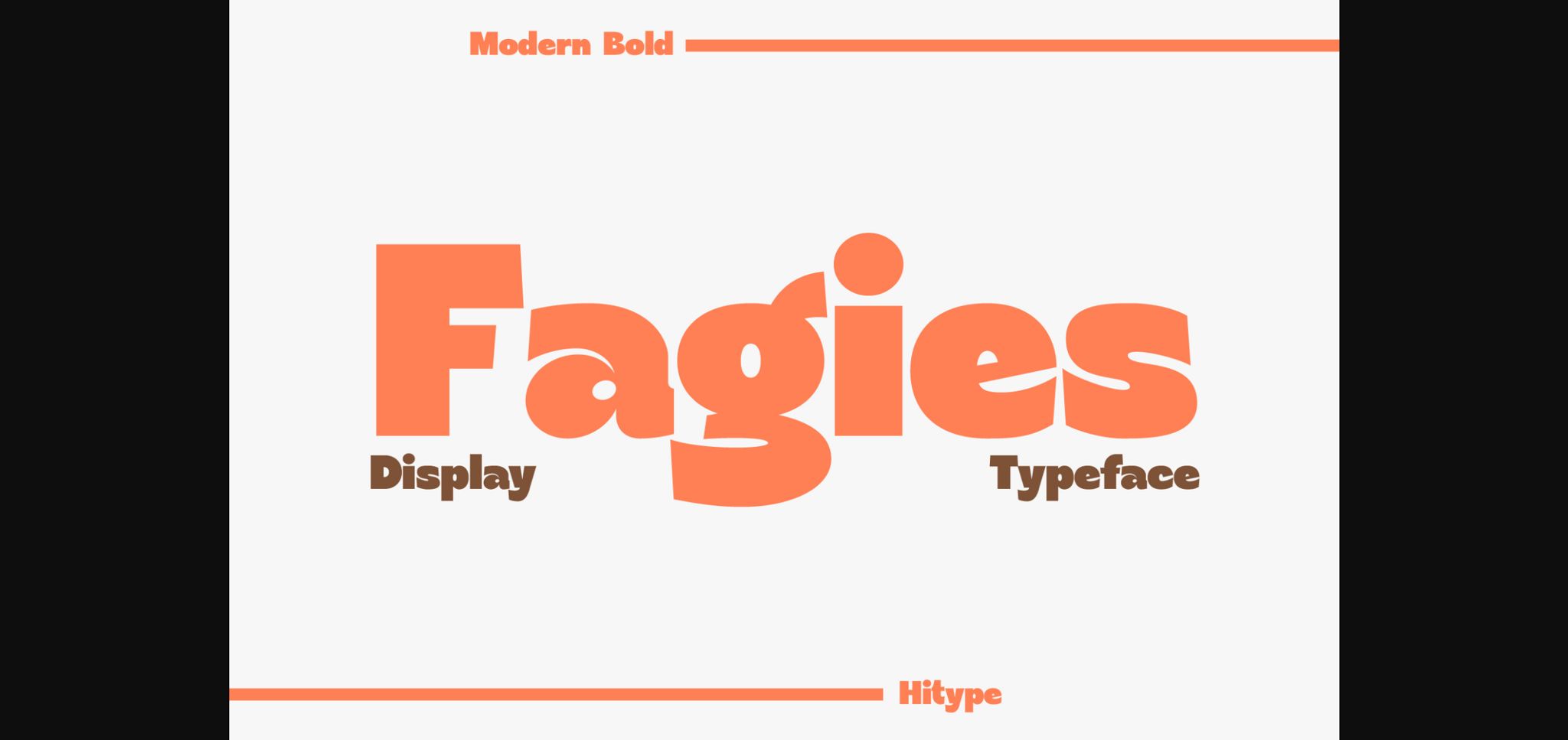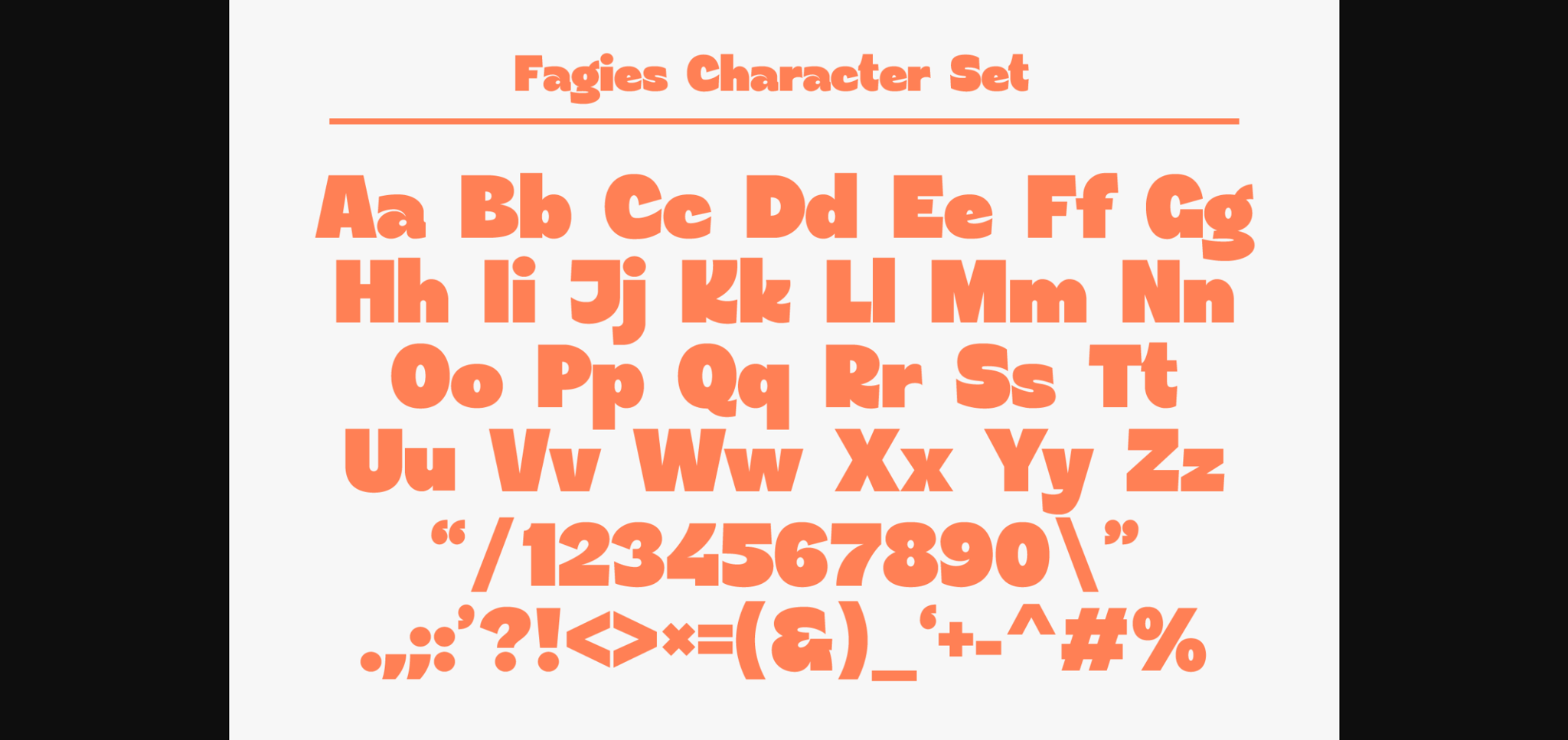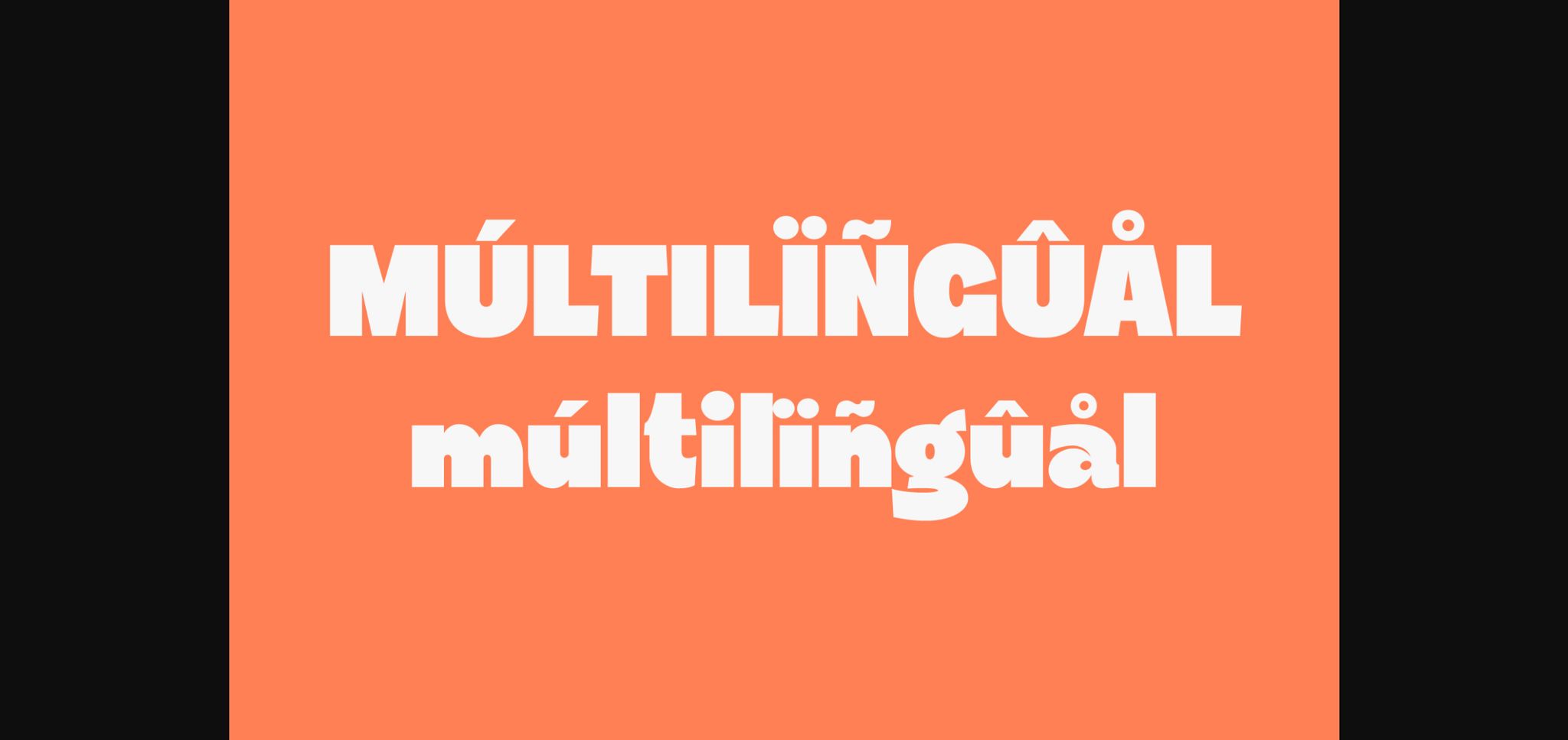
About Fagies Font
Fagies is a modern and bold sans serif typeface featuring characters that stand out from every background. Suitable for logos, posters, packaging, branding, invitations, notes, etc.